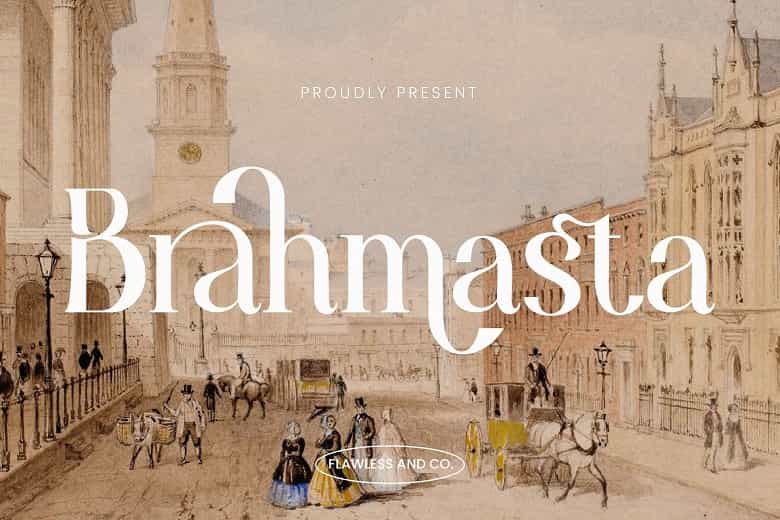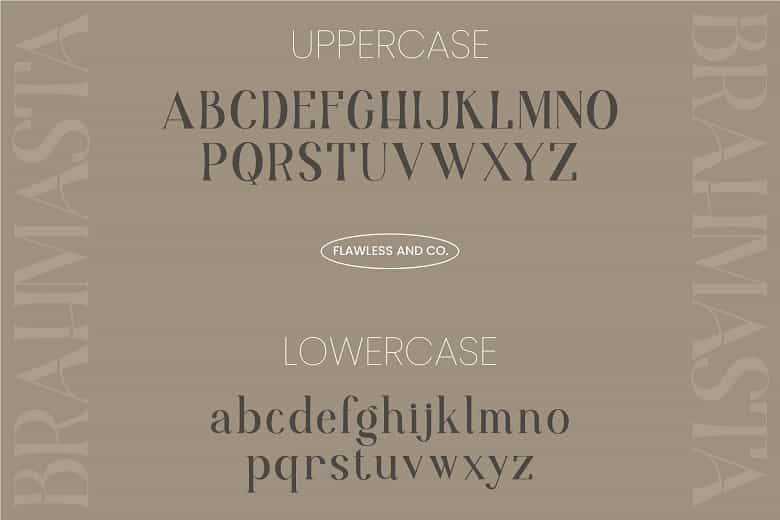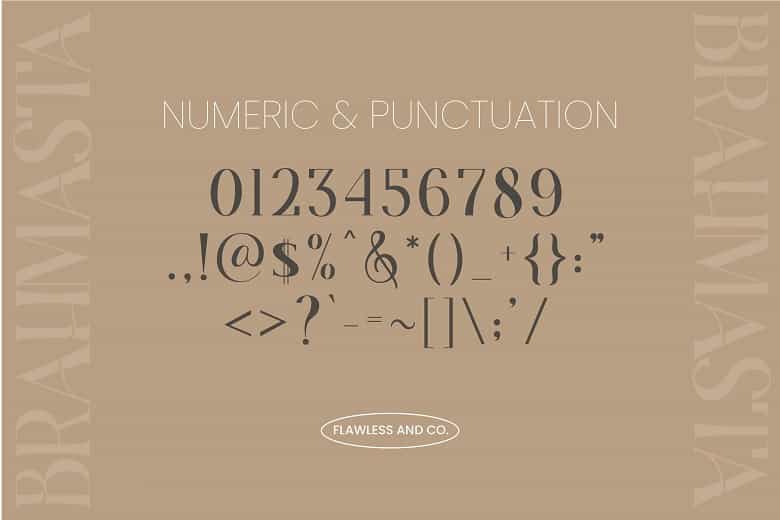
Brahmasta is a sophisticated and stylish serif font with nice and smooth curve and beautiful characters and Stylistic sets. Perfect for social media post designs, branding, merchandise, posters etc it will give a luxurious feel to any design project that you want to make.